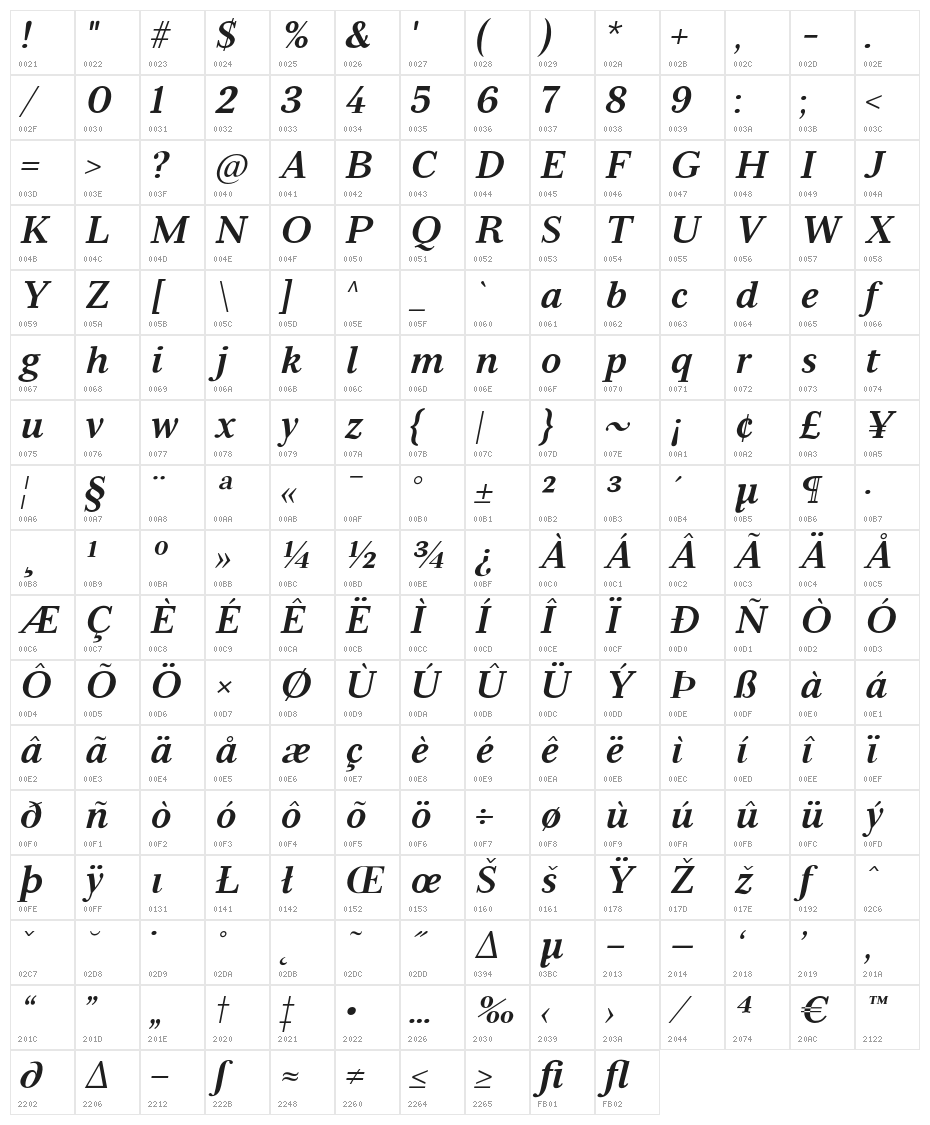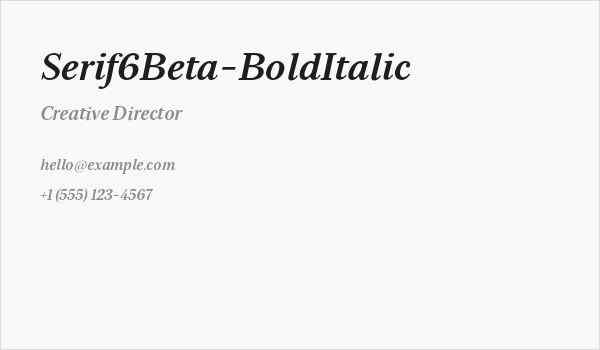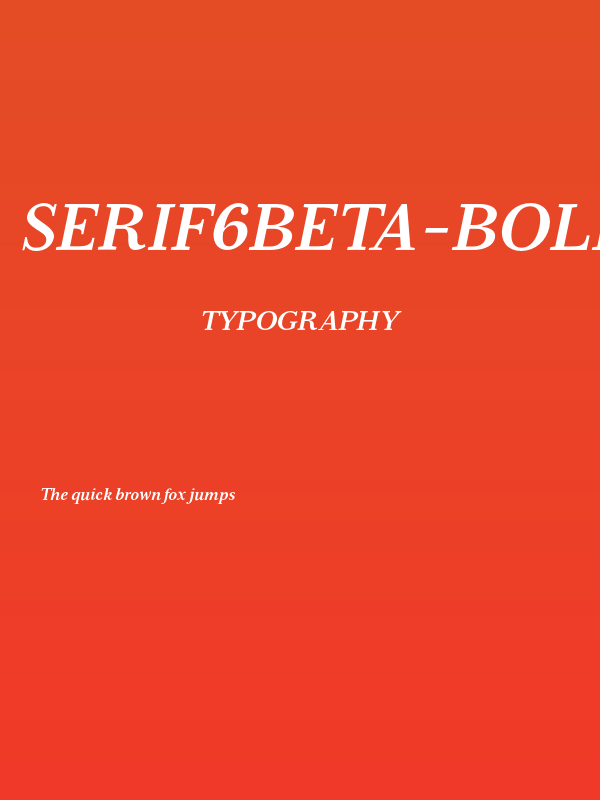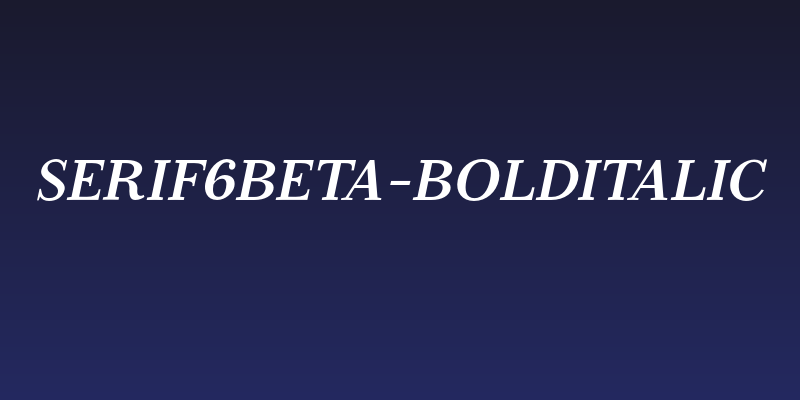
Serif6Beta-BoldItalic Font
Serif6Beta-BoldItalic Description
This font features a classic serif style with a bold and italicized appearance, giving it a strong and elegant presence. The serifs are pronounced, adding a touch of sophistication and tradition. The italic slant enhances the dynamic feel, making it suitable for emphasis in text. The numerals are well-proportioned, maintaining readability. Special characters are distinct and harmonize well with the overall design. This font is versatile, offering a blend of classic and modern aesthetics, making it ideal for a variety of design projects.
| Proposed Projects | Ideal for book covers, editorial design, branding, and formal invitations. |